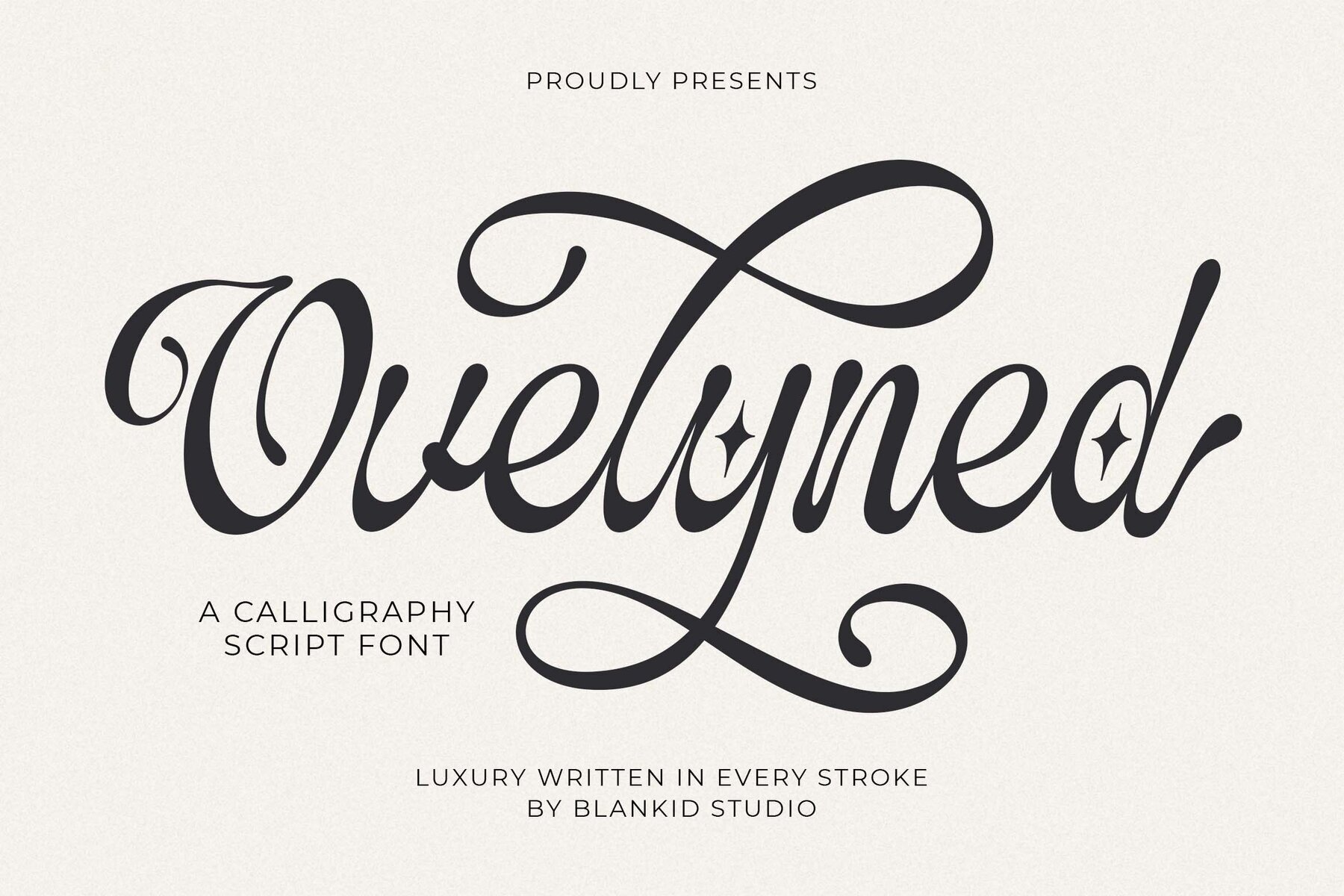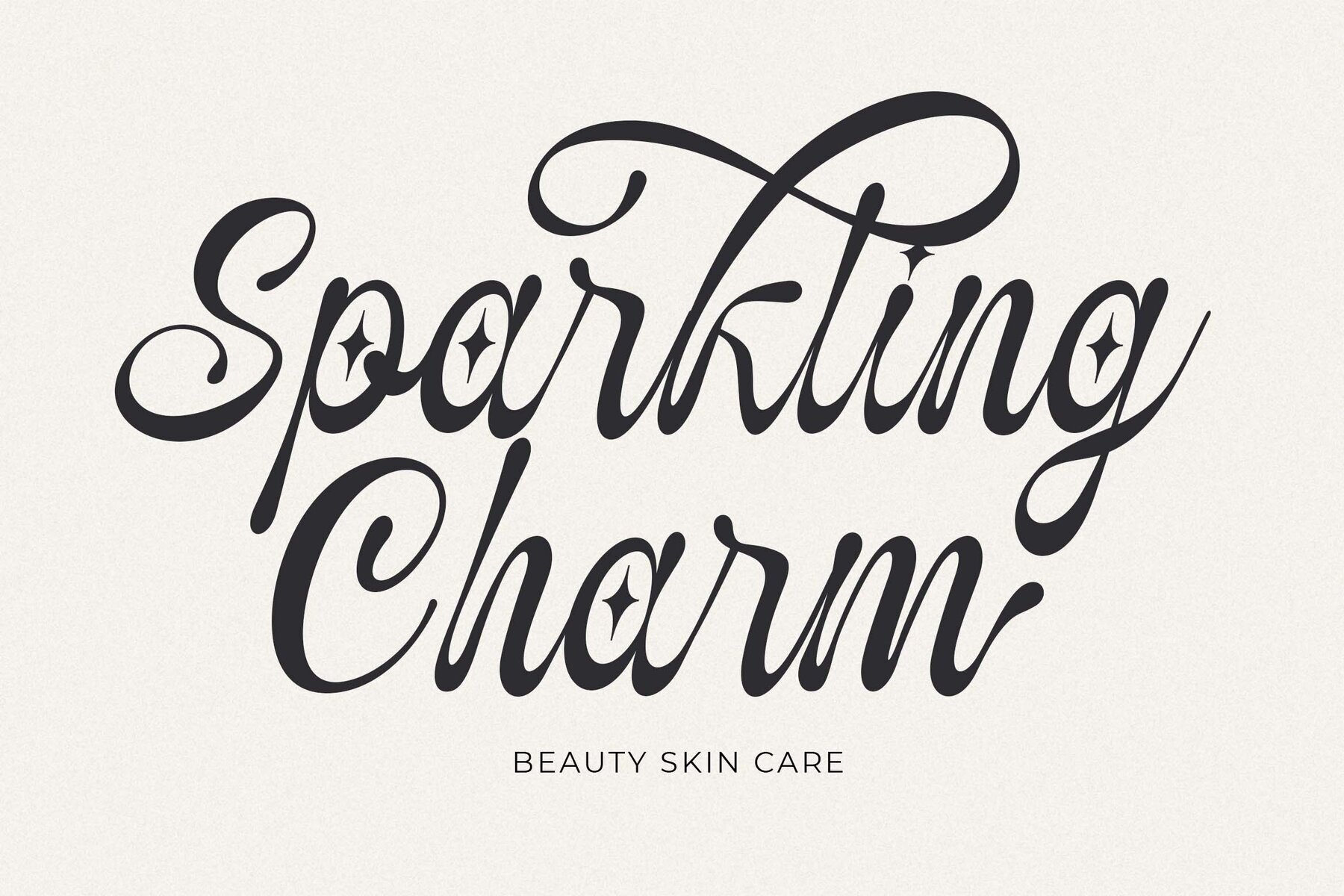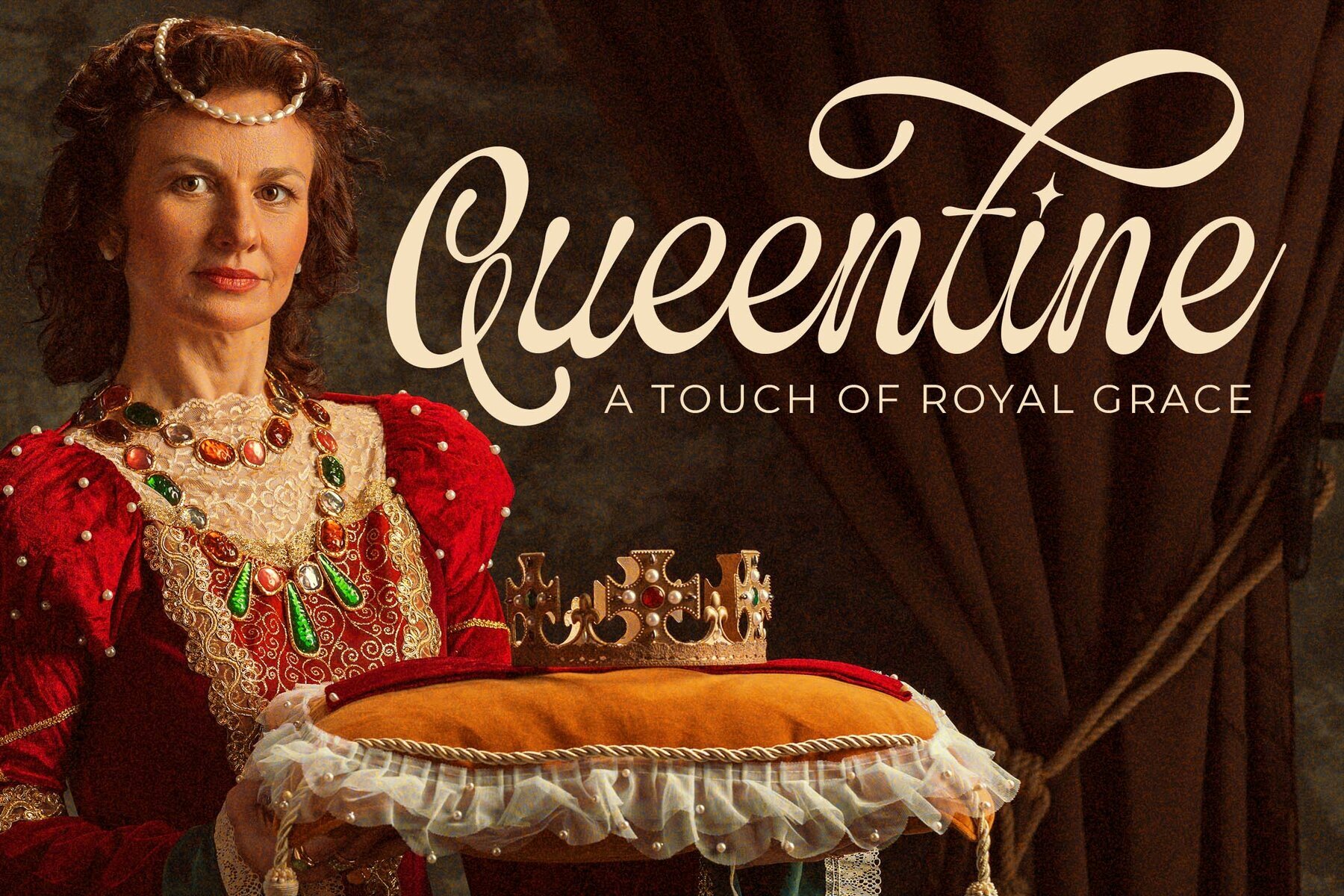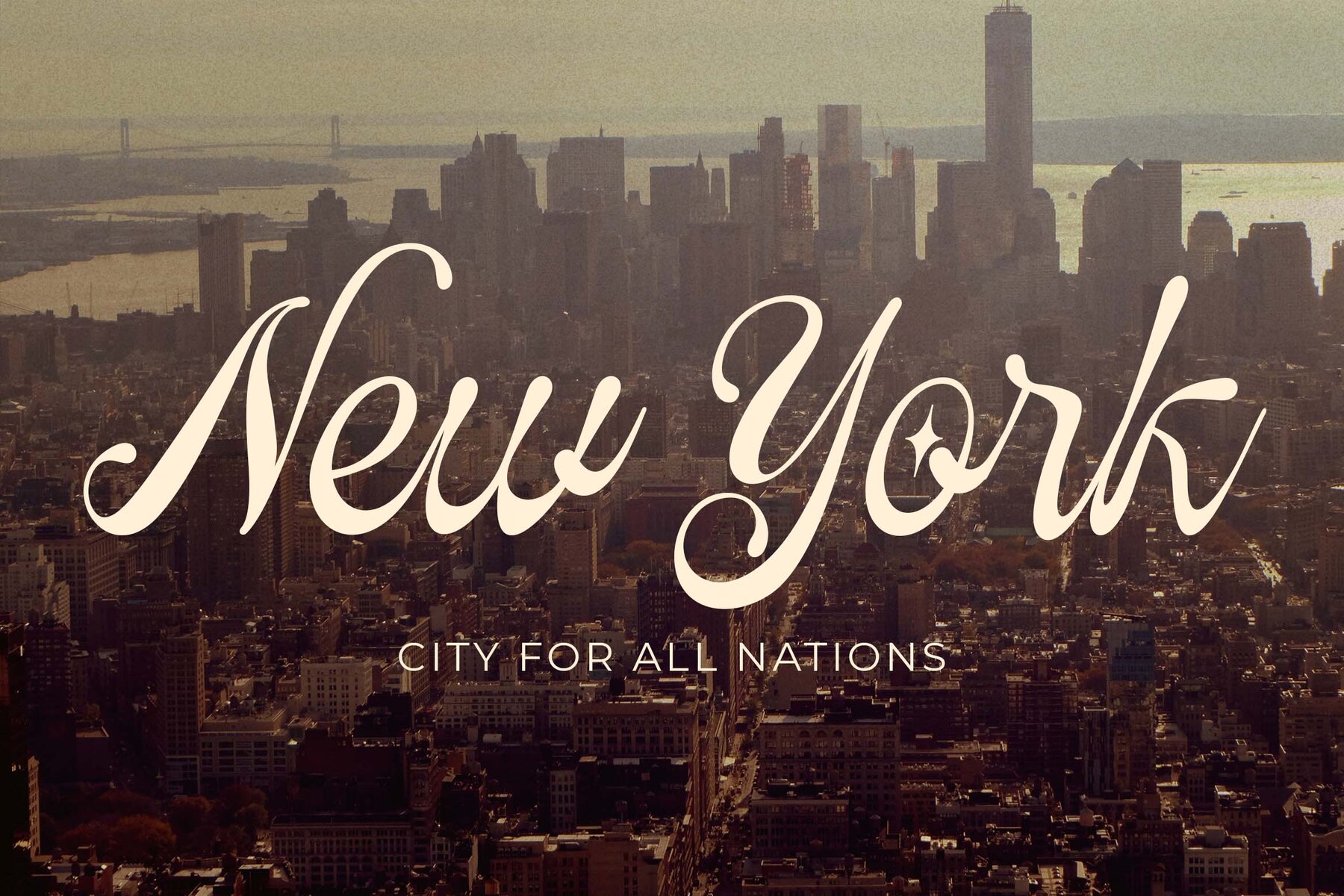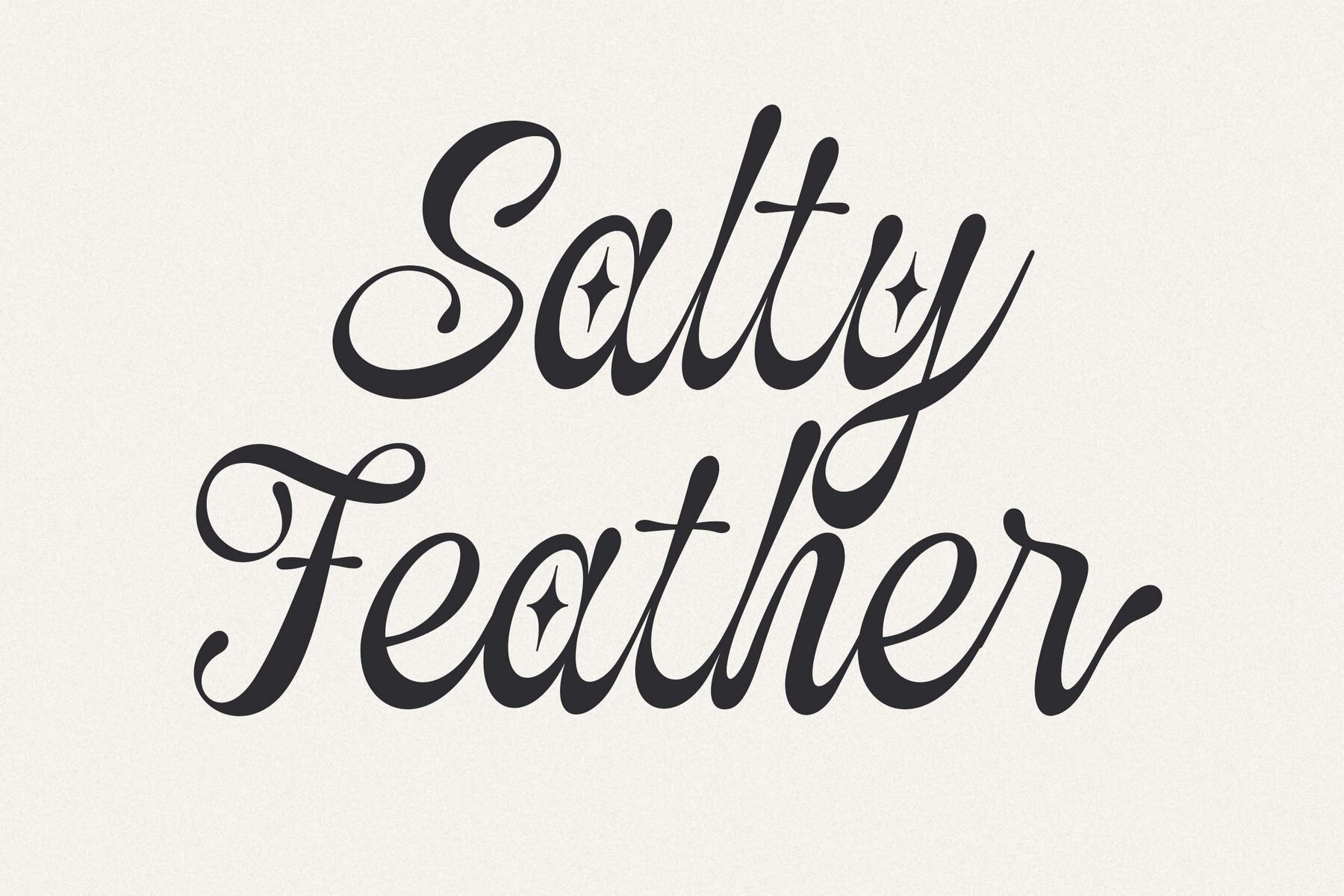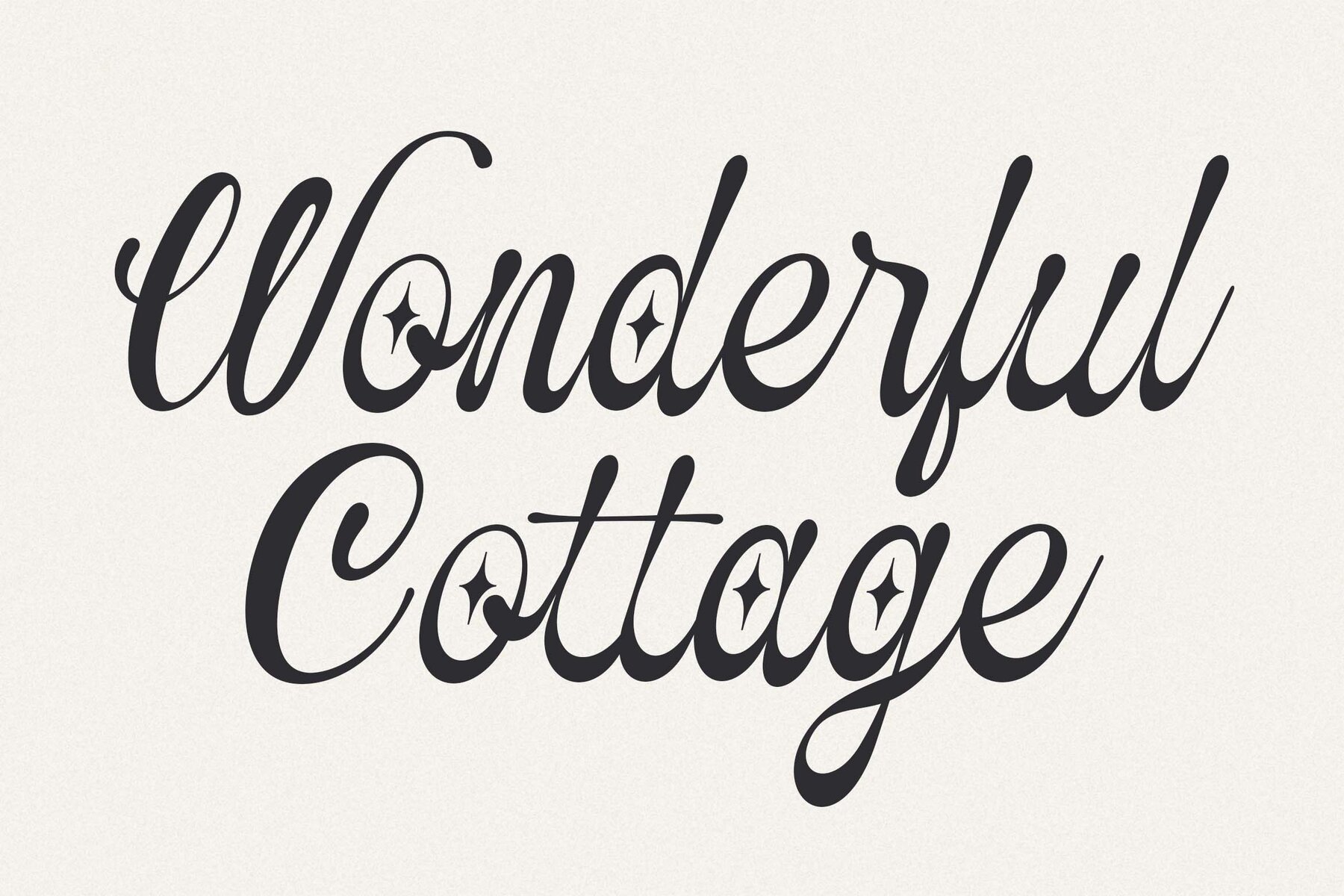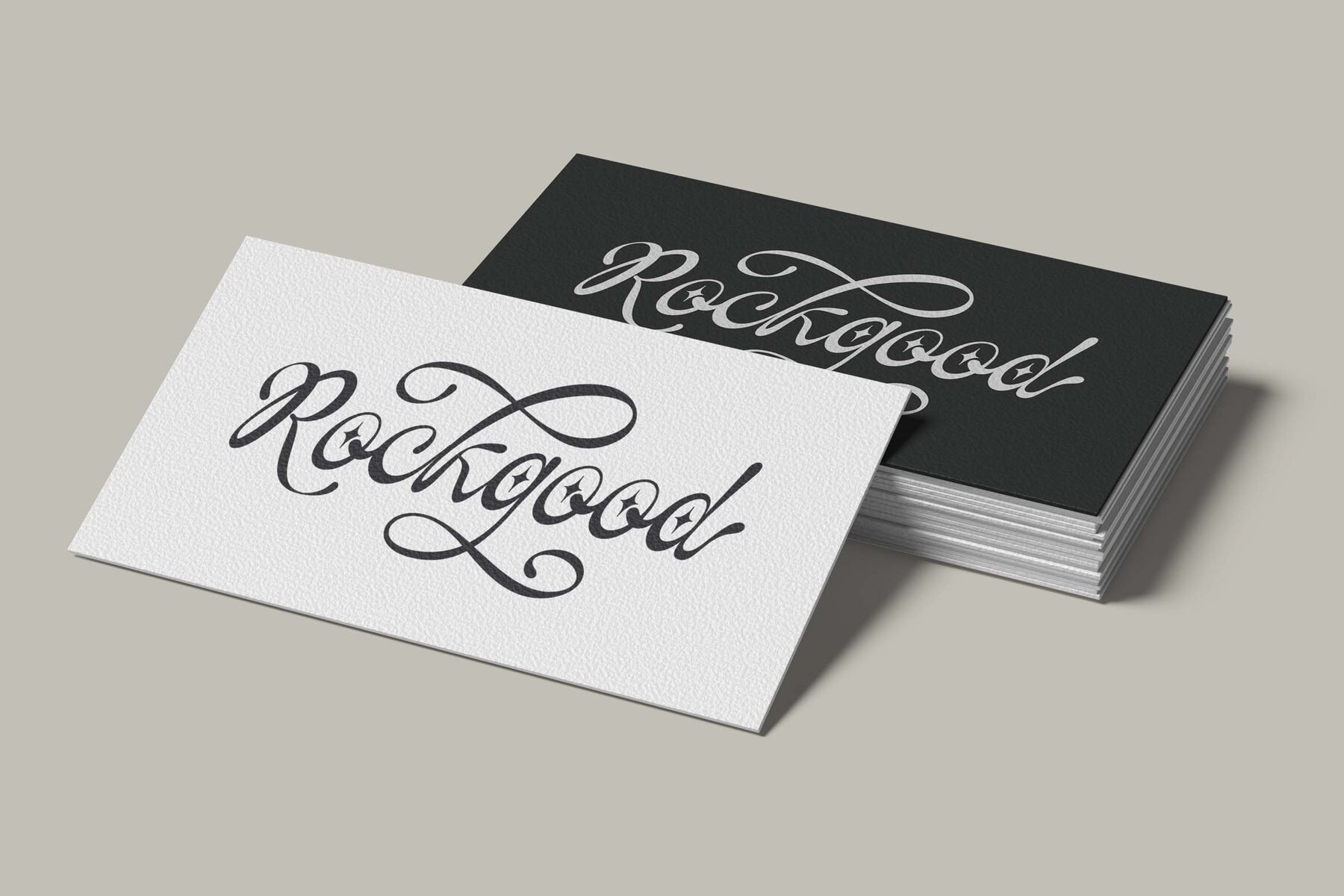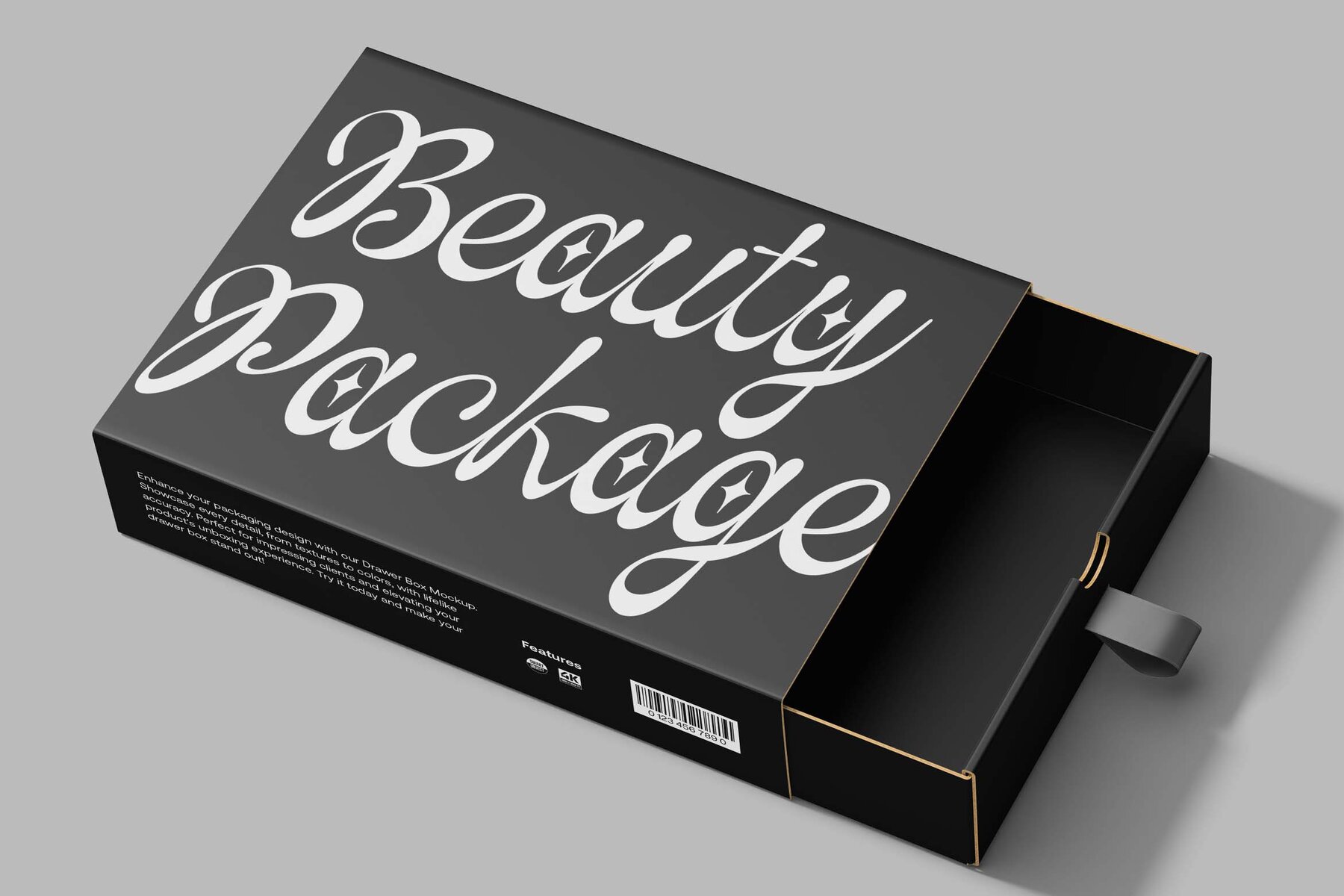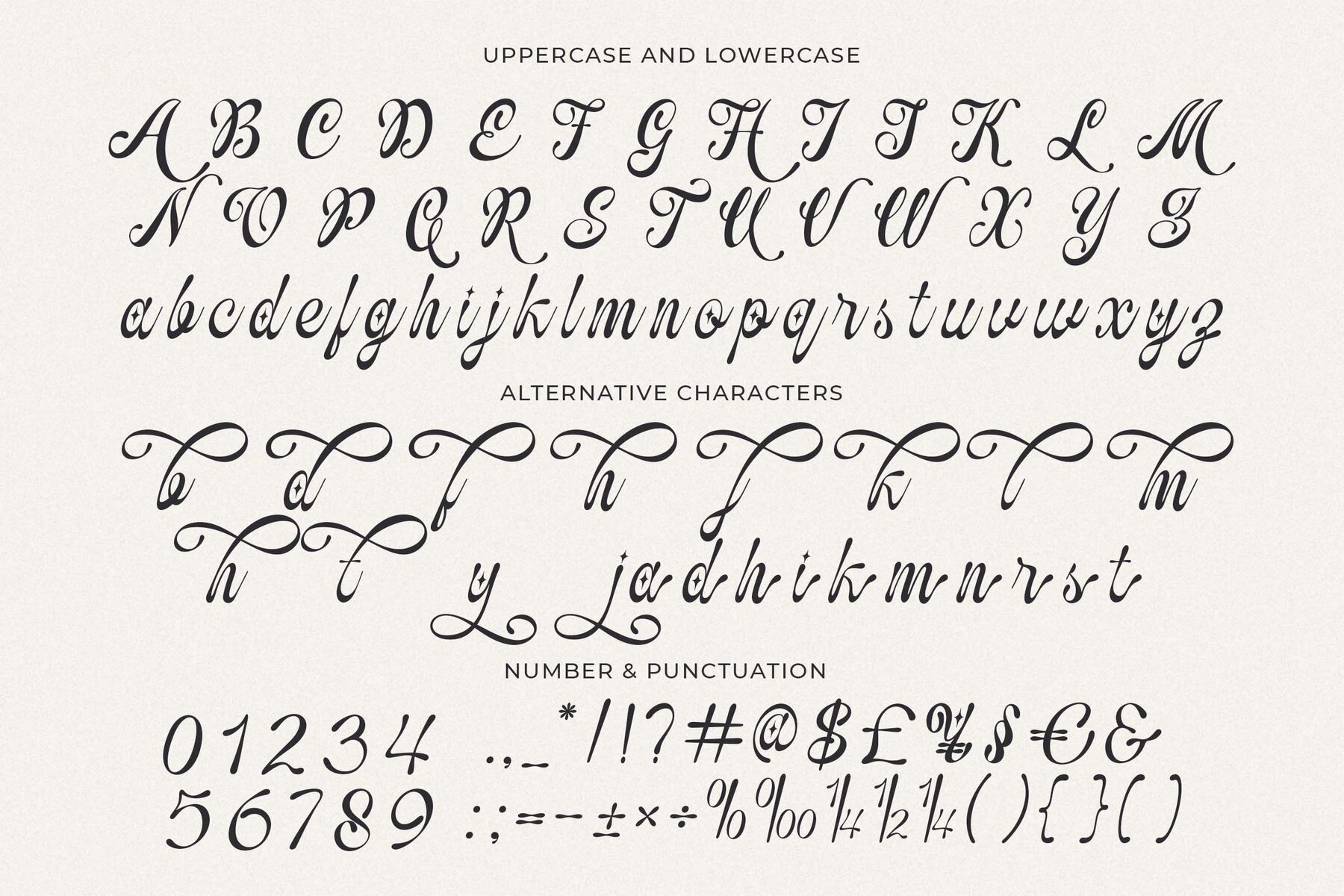
Ovelyned Font
Ovelyned Regular
Ovelyned is a calligraphy script font that infuses elegance into professional branding projects. Designed for logotypes, watermarks, posters, and product packaging, this font adds a touch of artistry to each creation. The calligraphy-style letters are meticulously crafted, offering a distinct sophistication that elevates promotional materials and more.Ovelyned: Elegant Calligraphy for Professional Branding
Unleash the creativity of Ovelyned in your designs and let its elegant curves speak volumes in your projects.